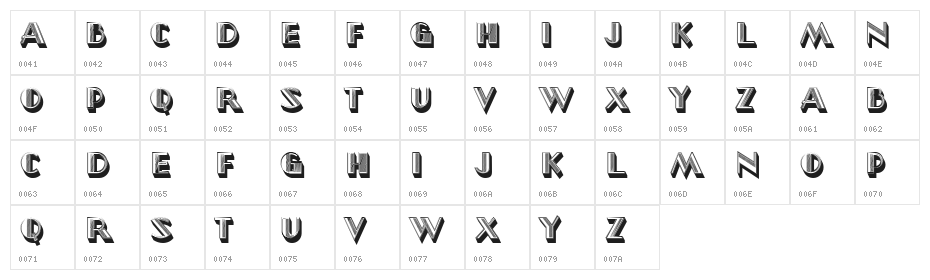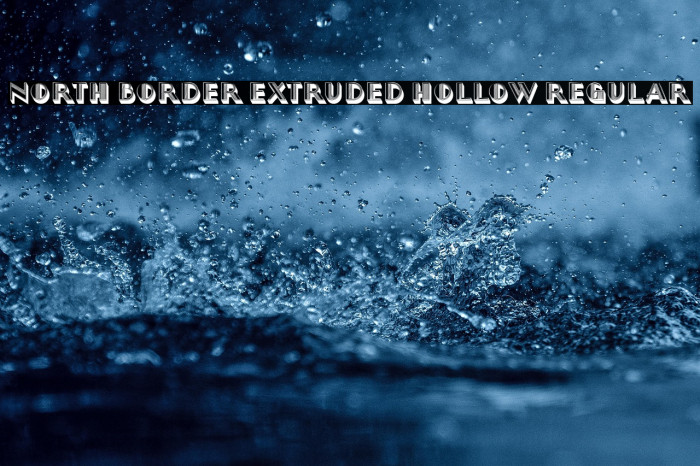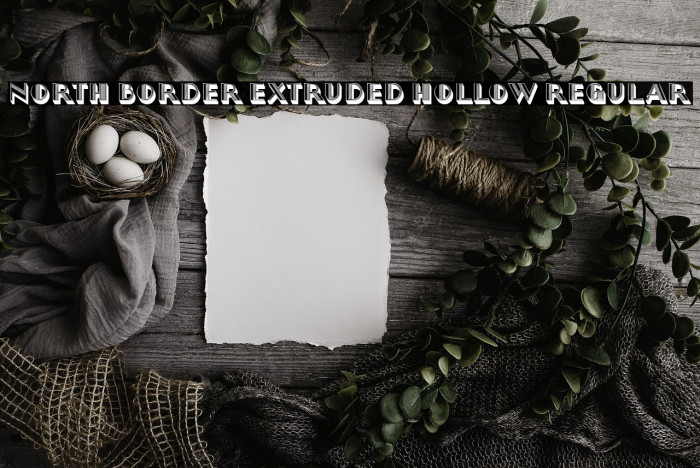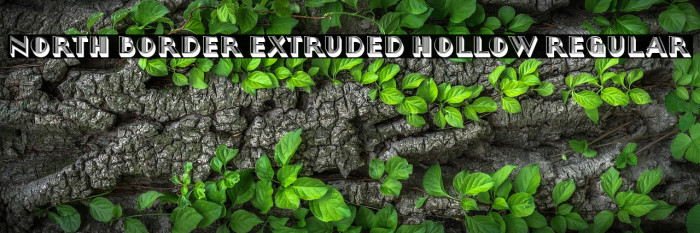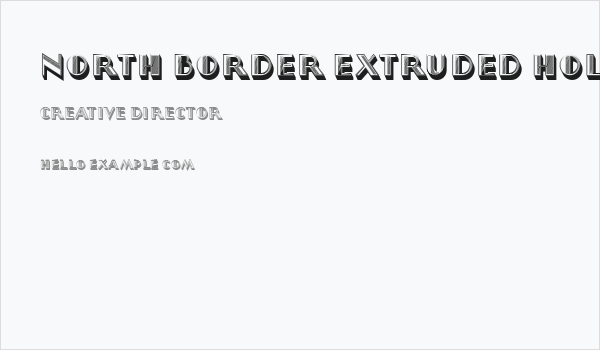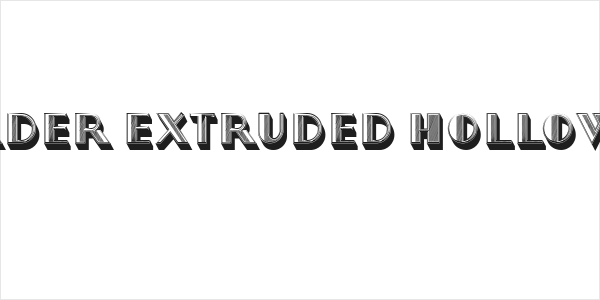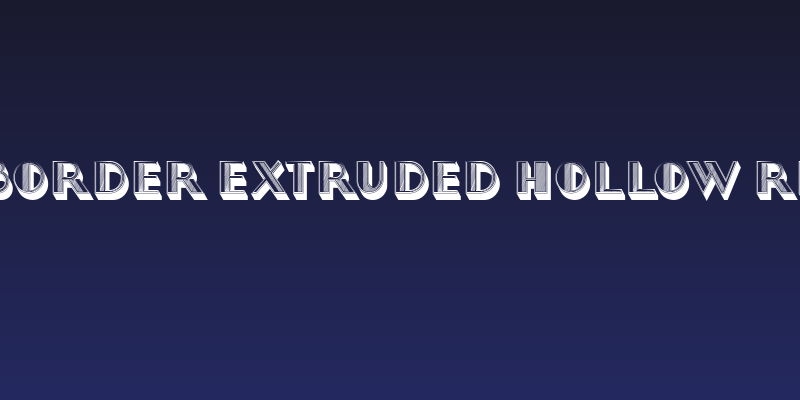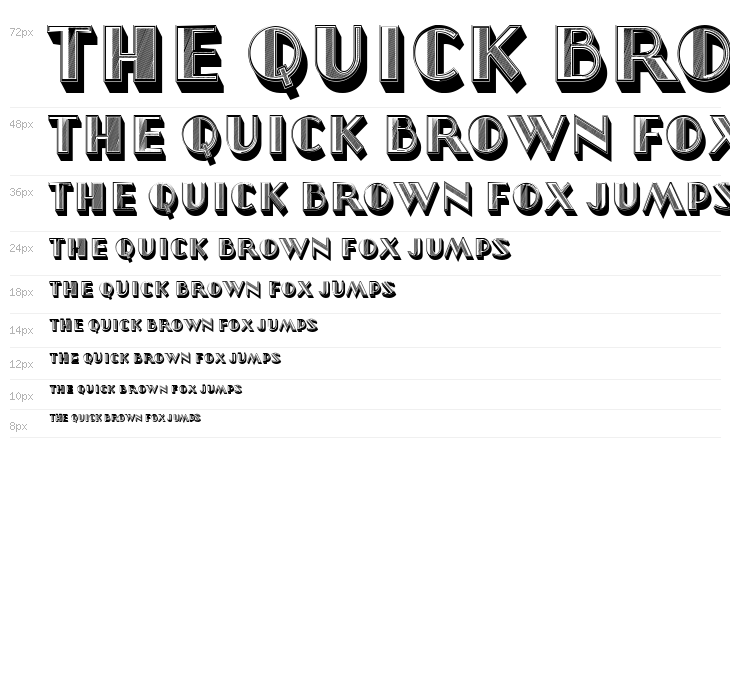
North Border Extruded Hollow Regular Font
North Border Extruded Hollow Regular Description
This font features a bold, extruded style with a hollow interior, giving it a three-dimensional appearance. The letters are capitalized, with a strong, geometric structure that emphasizes their boldness. The extruded effect creates a shadow-like appearance, enhancing the depth and making the letters stand out. The hollow interior adds a unique touch, making the font suitable for eye-catching designs. Its distinct style is ideal for projects that require a striking visual impact, such as posters, headlines, or branding materials. The font's design is both modern and decorative, offering a versatile option for various creative applications.
| Proposed Projects | Ideal for posters, headlines, branding, and any design requiring a striking visual impact. |